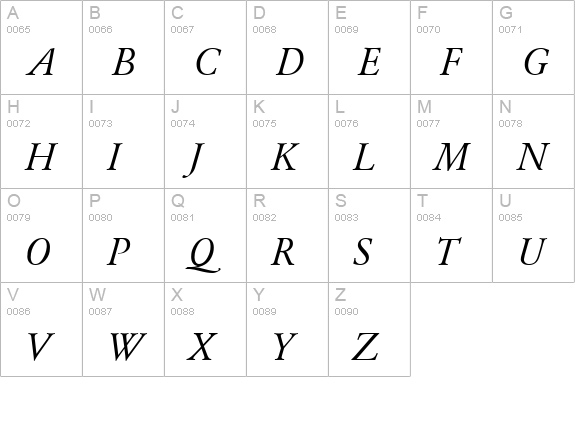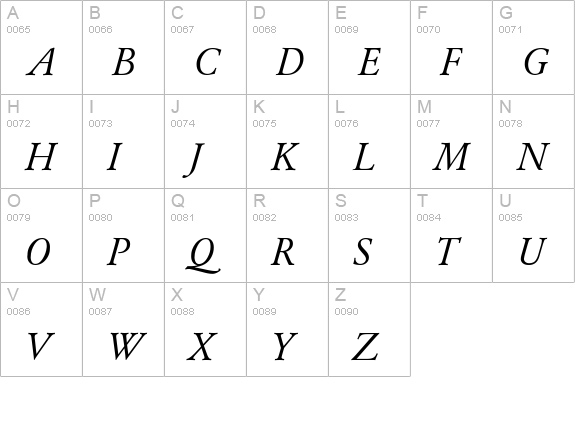
QTGaromand Italic Font Details
QTGaromand Italic is a distinctive, italic variant in the QTGaromand typeface family \xE2\x80\x94 well suited to design and typography projects.
QTGaromand Italic is a stunningly elegant and sophisticated font that will add a touch of class to any design project. Its unique and distinctive letterforms are beautifully crafted with delicate curves and graceful strokes, making it perfect for adding a touch of elegance to invitations, wedding stationery, logos, branding materials, and more. This font exudes a sense of refined beauty and timeless style, making it the perfect choice for those seeking to create a truly memorable and sophisticated look. Whether you are designing a high-end fashion magazine, an upscale restaurant menu, or a luxurious brand identity, QTGaromand Italic will effortlessly elevate your design to new heights. One of the best things about QTGaromand Italic is that it is freely available to download at FontsMarket.com. This means that you can easily access and use this stunning font without any financial constraints. Whether you are a professional designer or a hobbyist, this font offers you the opportunity to create beautiful and impactful designs without having to spend a dime. With its sleek and graceful letterforms, QTGaromand Italic will bring a touch of sophistication and elegance to any project. Its versatility makes it suitable for a wide range of applications, from print designs to digital media. So if you are looking for a font that combines beauty, elegance, and affordability, look no further than QTGaromand Italic. Download it for free at FontsMarket.com and let your creativity soar.